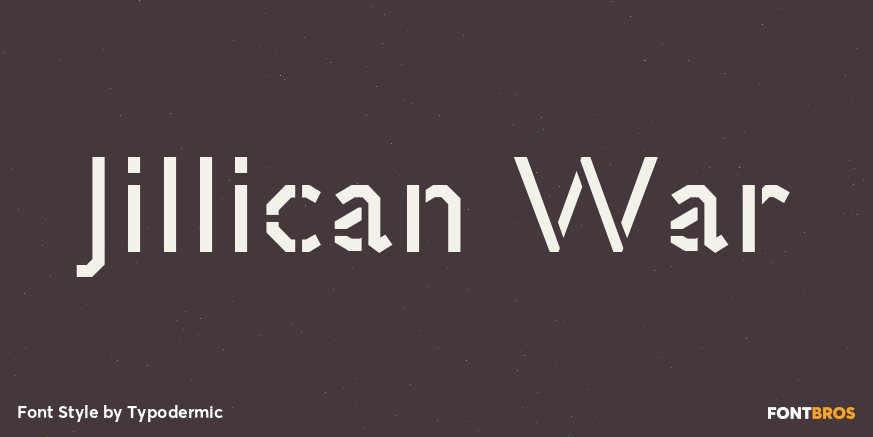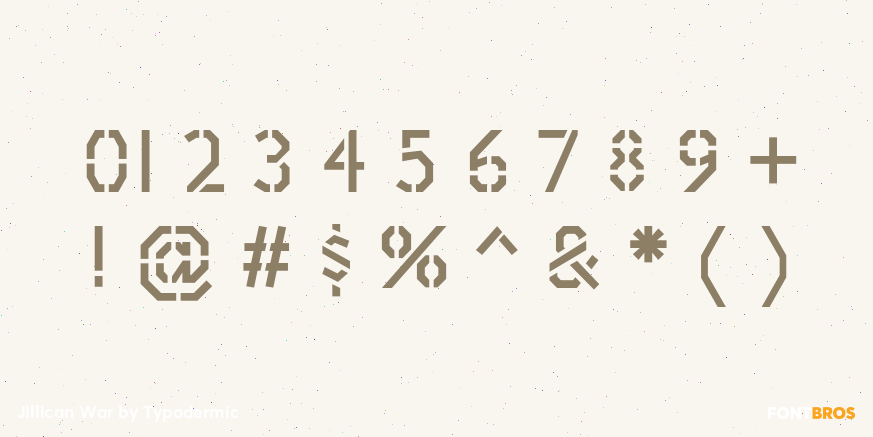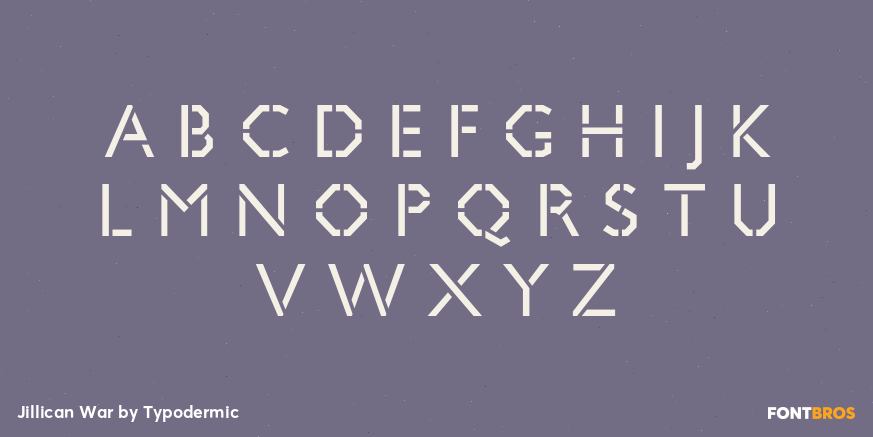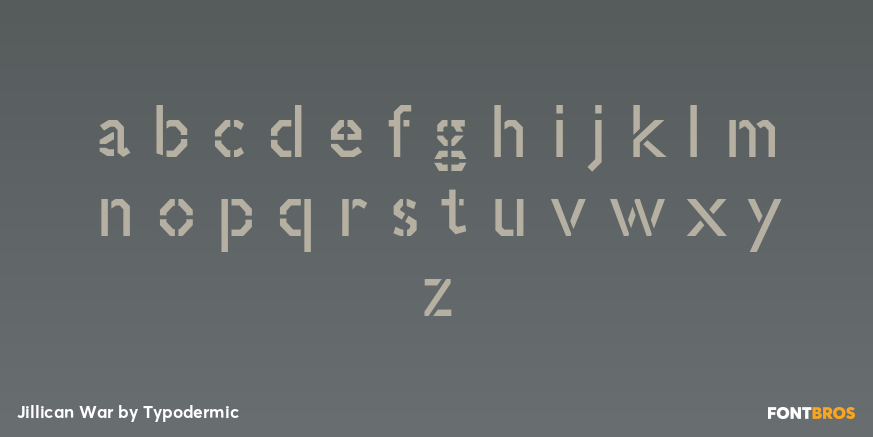
Jillican War
Buy NowJillican War takes Jillican's octagonal, Gill Sans-influenced framework and divides its strokes with deliberate stencil gaps. The breaks follow the clipped corners and angular joins, so the alphabet retains the family's humanist proportions while becoming more mechanical and regimented. Its treatment is clean and repeatable rather than weathered, and it remains a filled face instead of using the outlined dimensional construction found in Jillican War 3D.
Use Jillican War for tactical data displays, sports-broadcast graphics, football kit launches, matchday programmes, strategy-game interfaces and fictional faction insignia. The segmented forms also suit utility-fashion campaigns, technical-footwear graphics, political-thriller titles and post-punk layouts. Keep it to names, numerals, short headlines and other display text where the stencil breaks have enough size to remain clear.